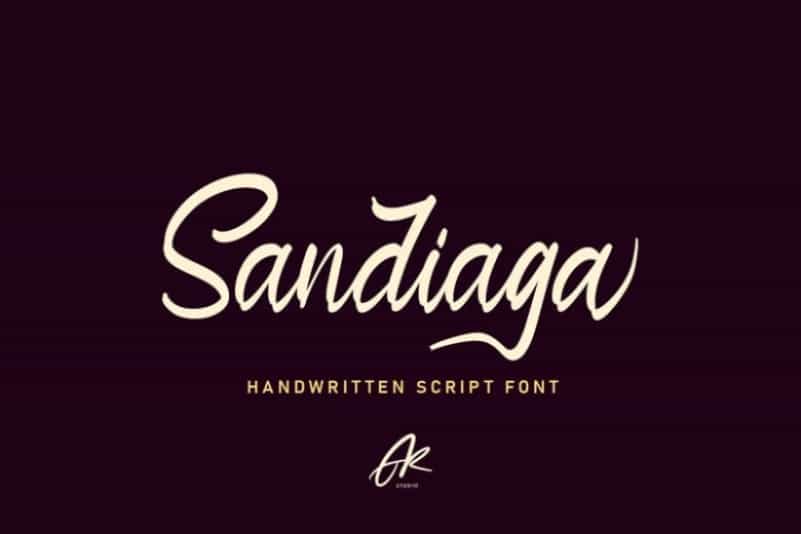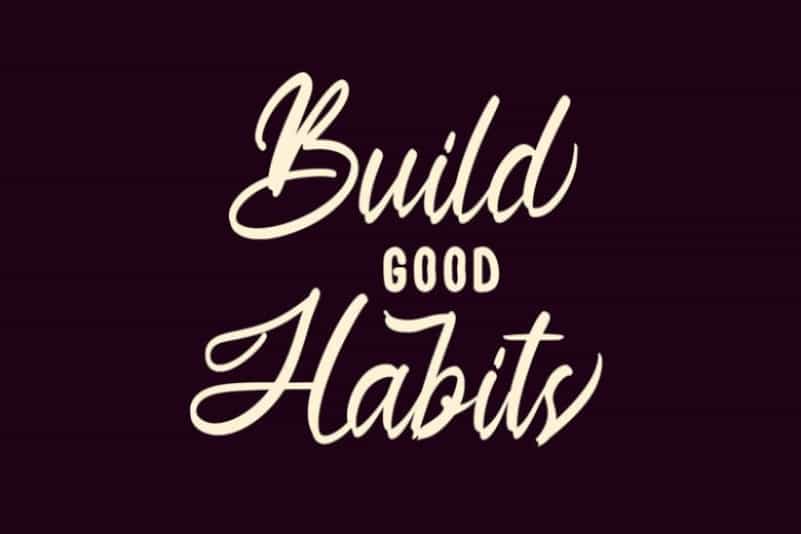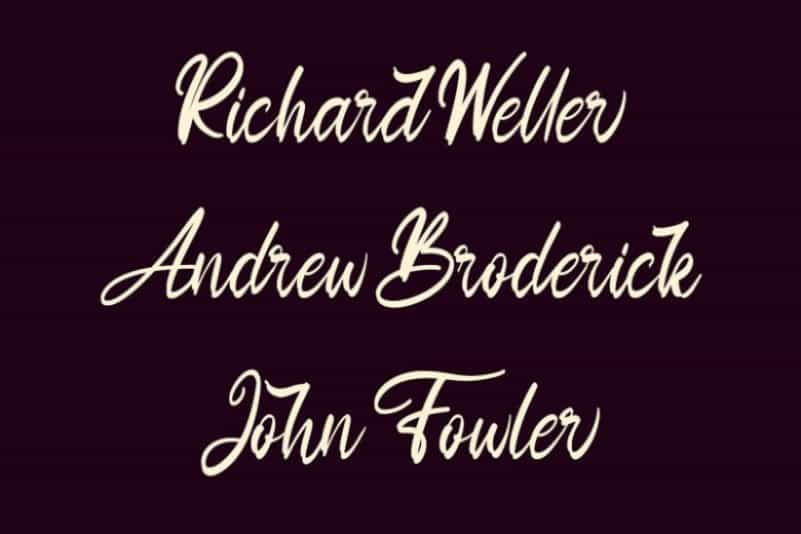
Sandiaga is a handwritten calligraphy font with fast movement modern style of the font. It is the ideal font for wedding design projects, invitations, greeting cards, signatures, watermarks and logos. Besides that it can be also used as a handwriting of input information and so on.